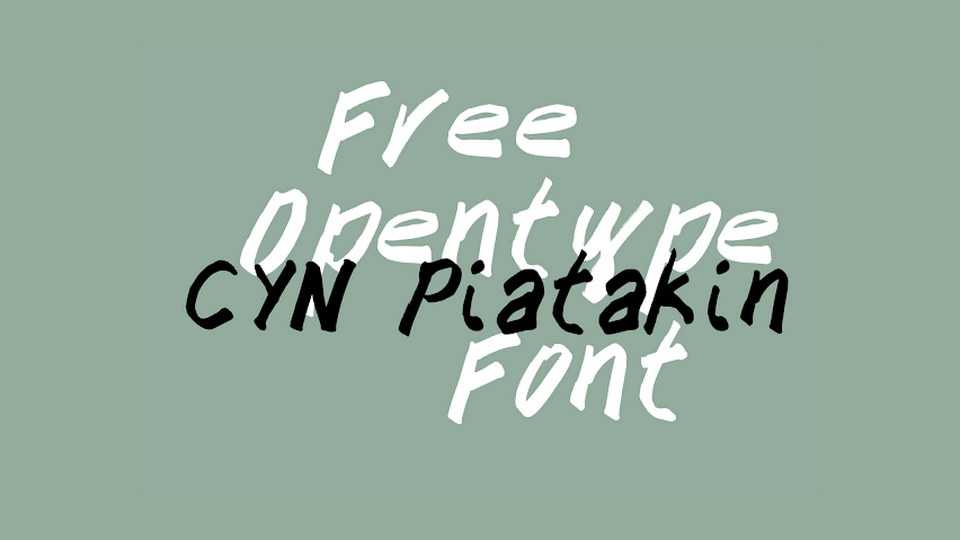
Download CYN Piatakin font, a hand lettered brush typeface with natural imperfections. CYN Piatakin font is suitable for posters, album artworks, t-shirt prints and other projects.
Designer: Petros Vasiadis